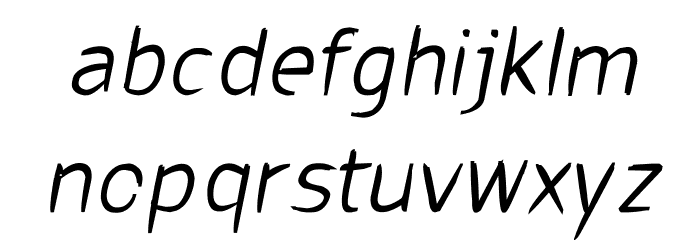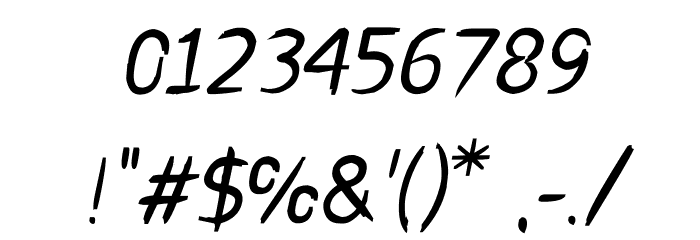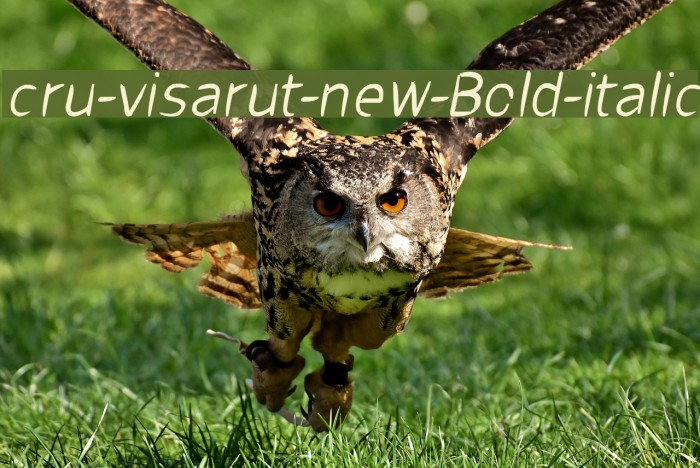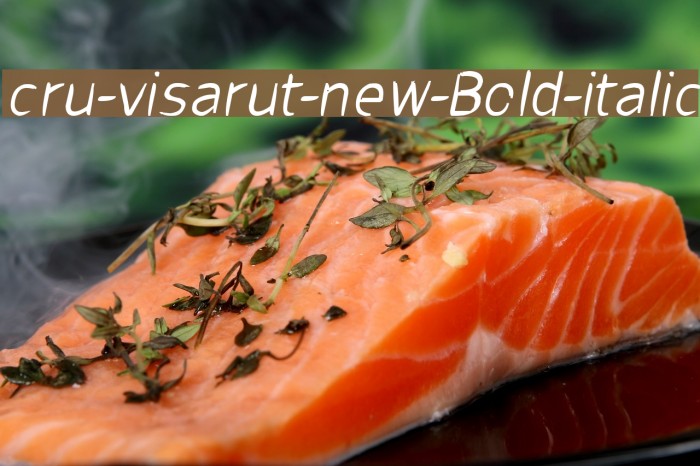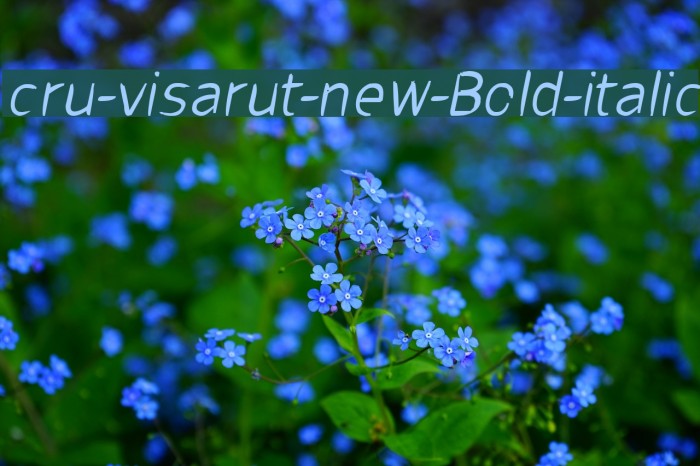
cru-visarut-new-Bold-italic Font
This font exhibits a modern and dynamic style with a slanted, italicized appearance that adds a sense of motion and fluidity. The characters are bold, providing a strong visual impact while maintaining readability. The strokes are consistent in thickness, offering a medium contrast that balances between elegance and clarity. The overall design is sleek and contemporary, making it suitable for a variety of applications. The character spacing is normal, ensuring legibility without appearing cramped. This font's unique style is both professional and approachable, making it versatile for numerous design projects.
- Proposed Projects: Ideal for branding, advertising, headlines, and digital media where a modern and impactful look is desired.
- Use Case: Headlines, Logos, Branding